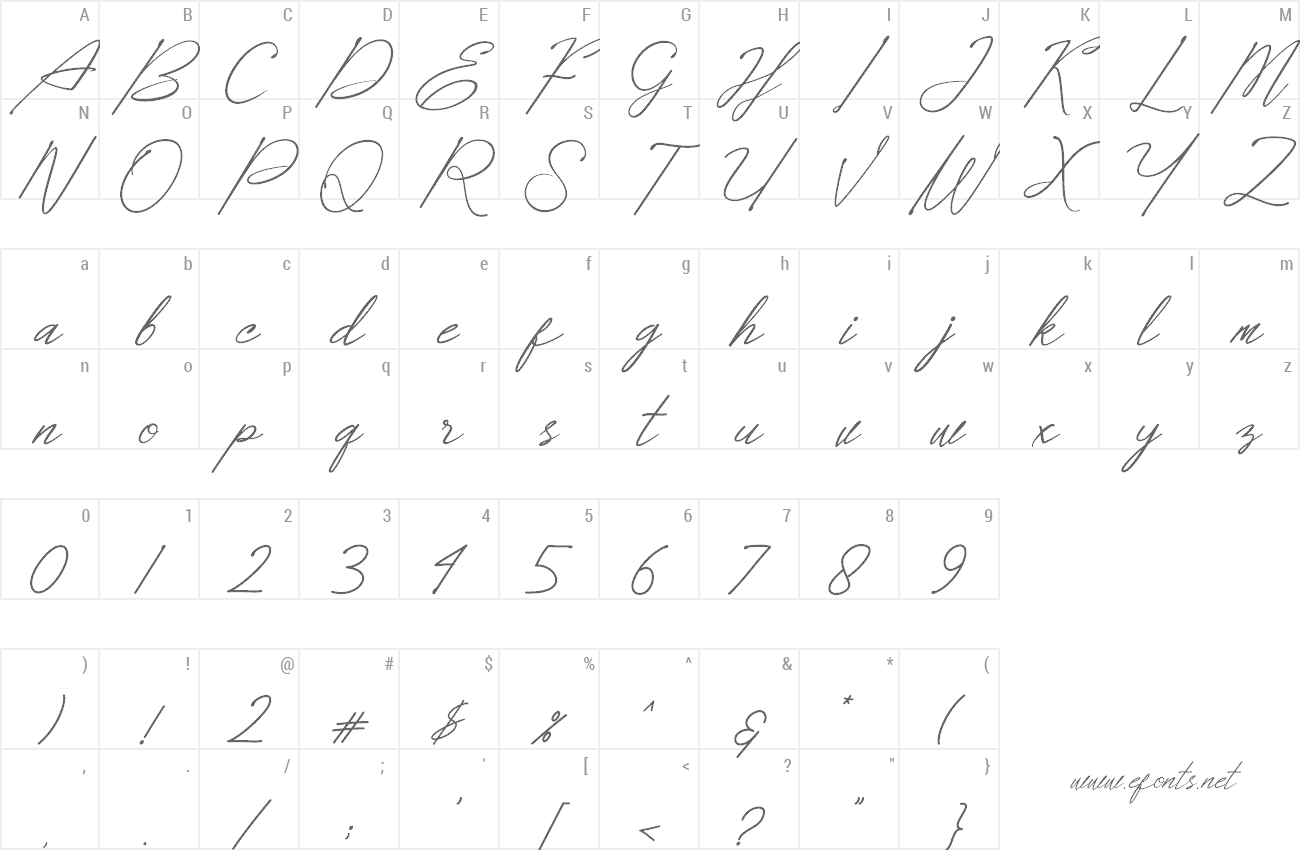
The Dear Elisa is a modern handwritten script. It has a natural and elegant style and is perfect for branding, signatures, watermarks, business cards, clothing, magazines, and every other design which needs a luxurious feel. Visit my Store: https://www.creativefabrica.com/designer/senoajifont/ https://fontbundles.net/senoajifont |